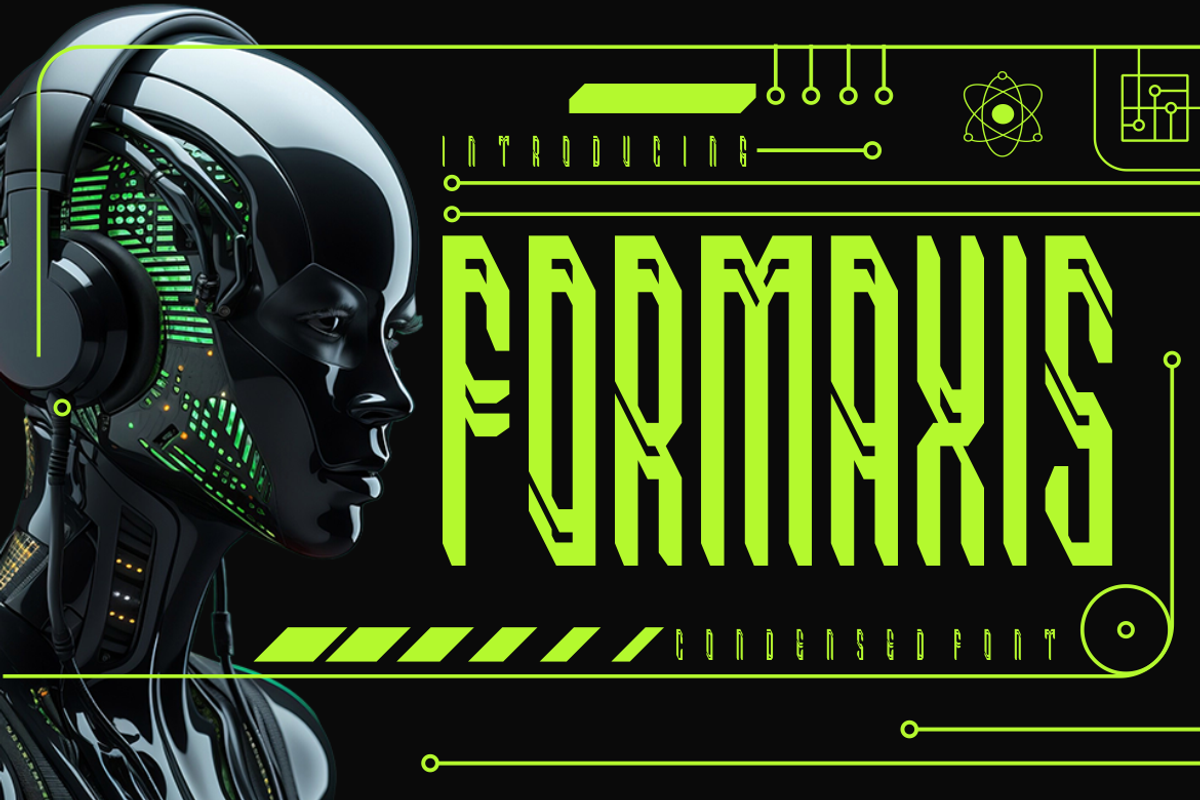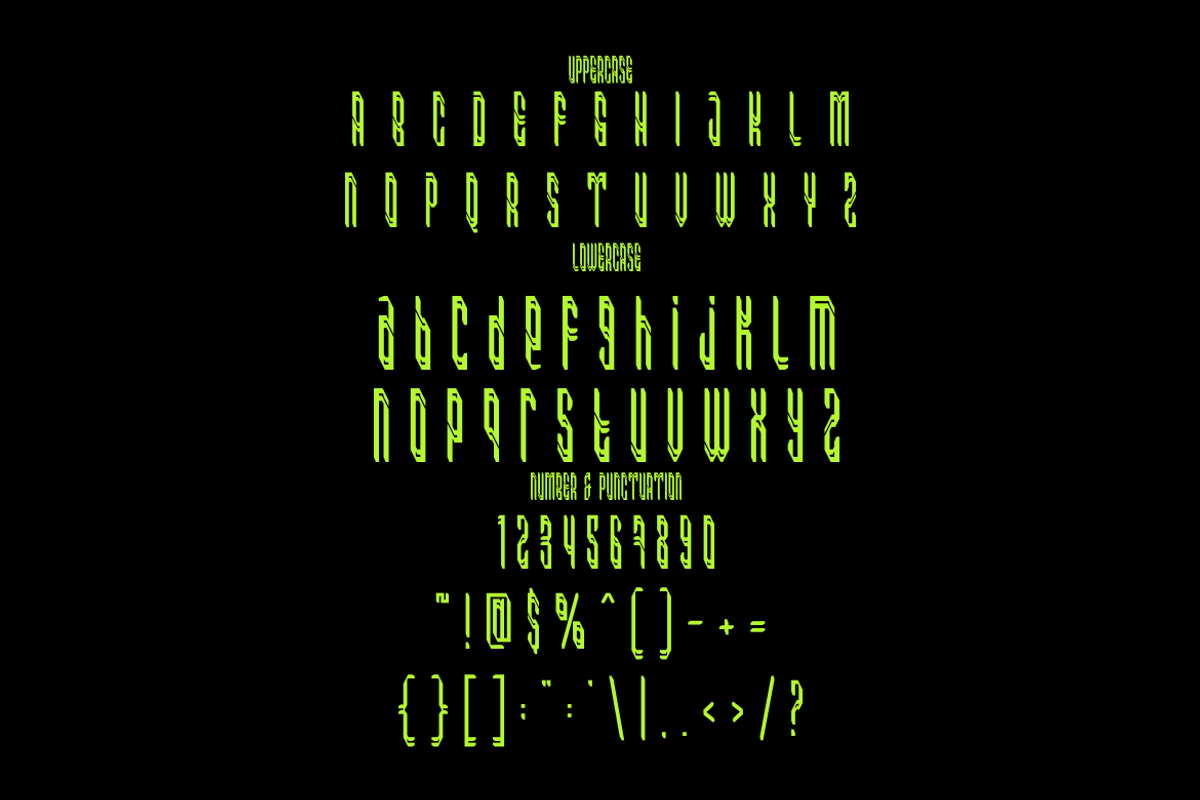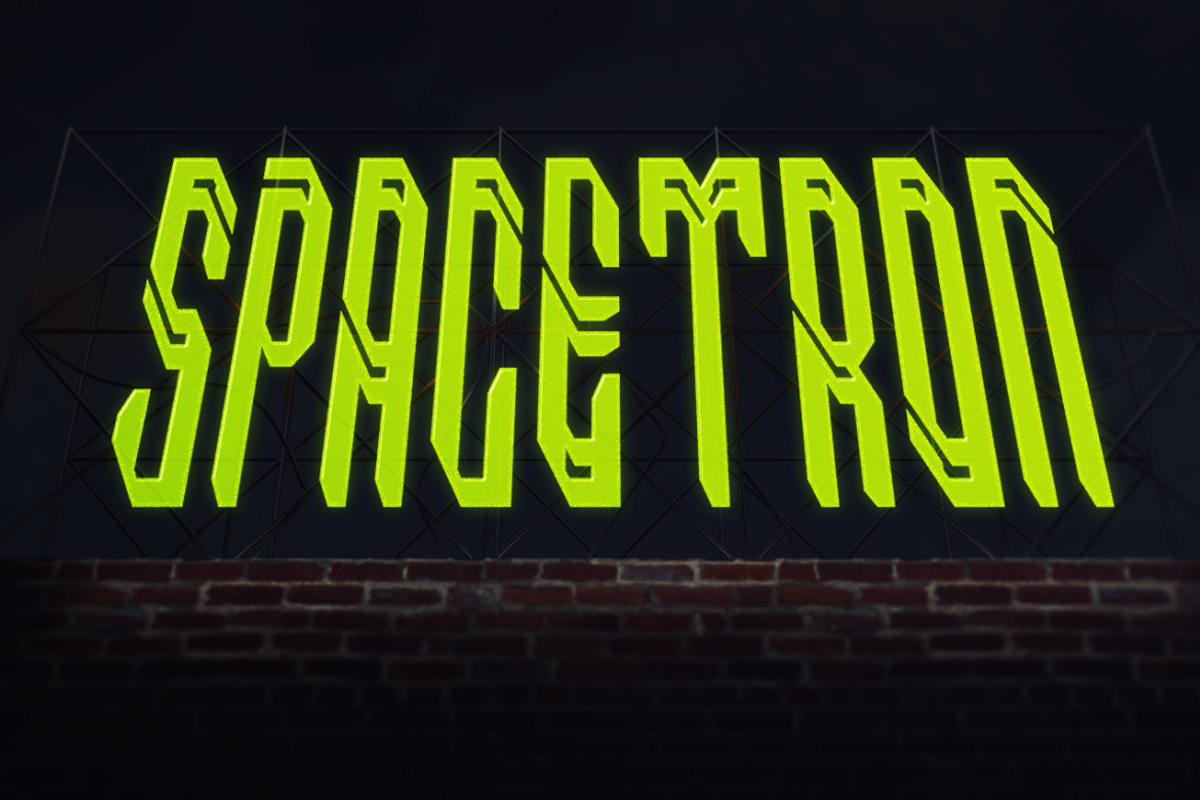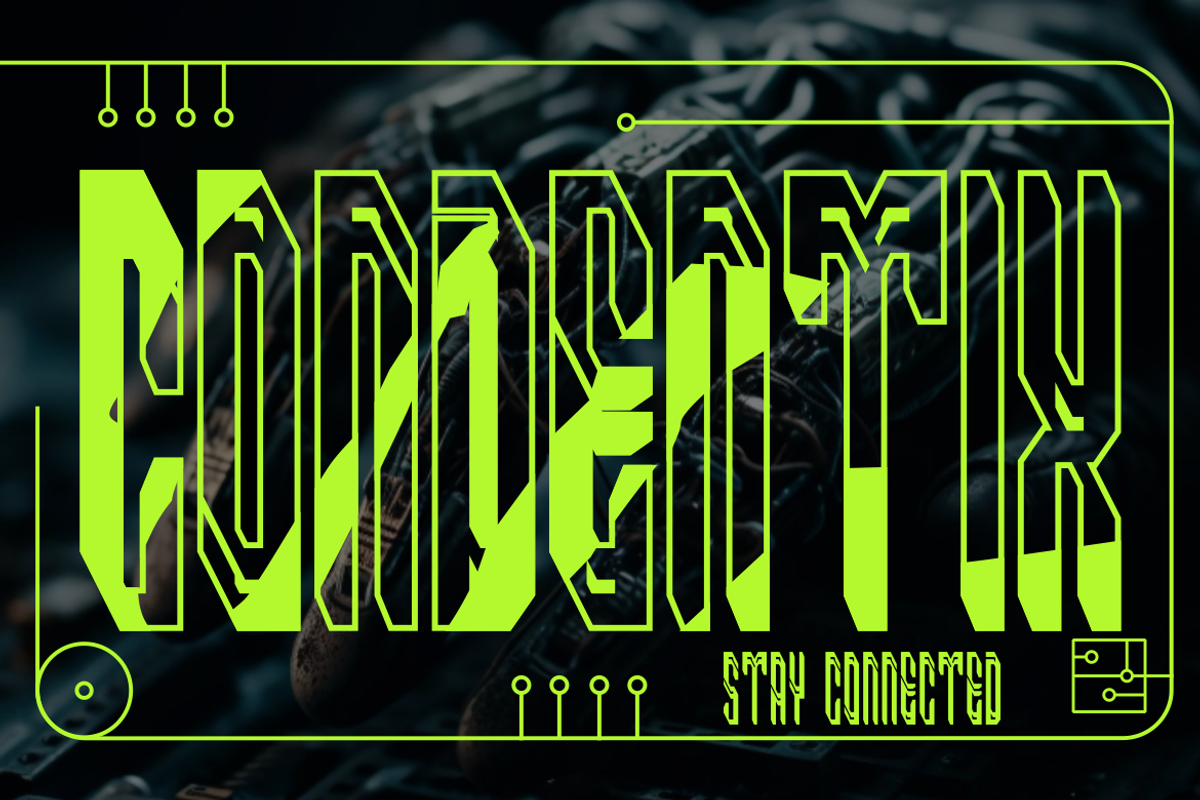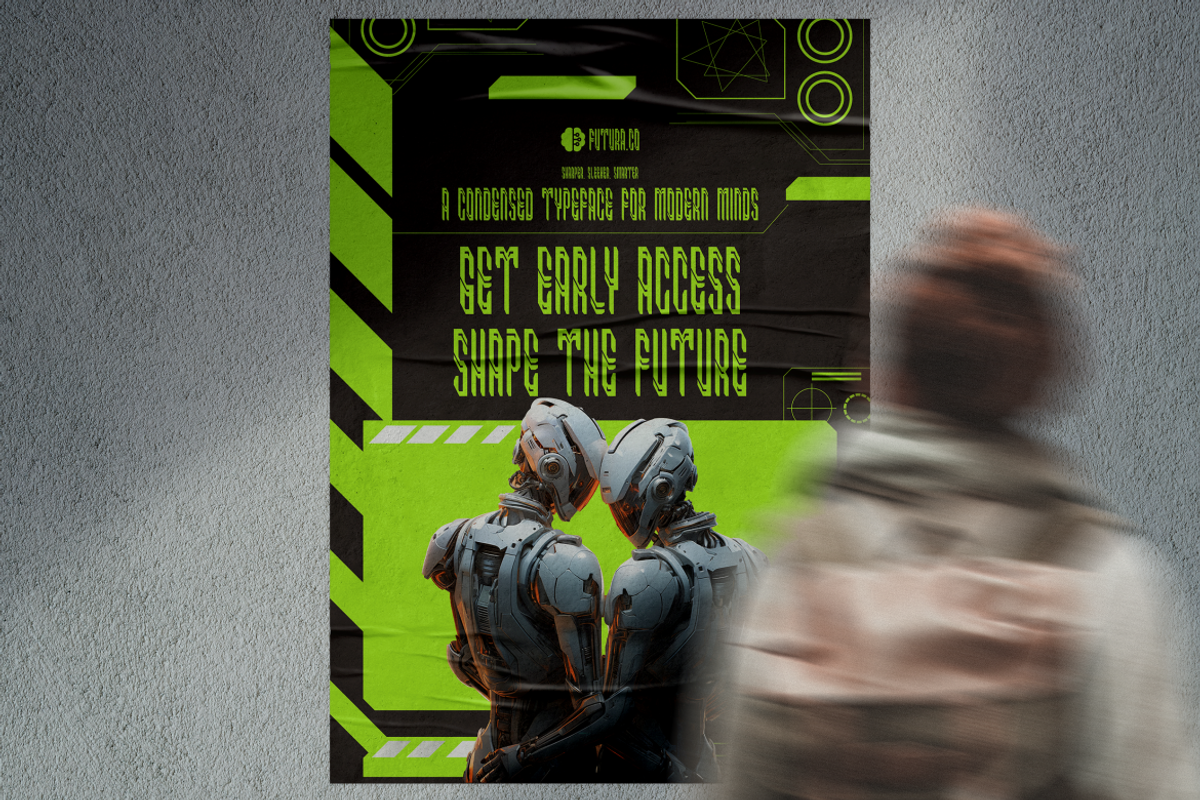
Formaxis Condensed Techno Font
Formaxis – Condensed Font is a striking typeface designed with sharp futuristic lines and condensed letterforms that immediately capture attention. Its geometric cuts and elongated vertical proportions create a bold and commanding appearance, perfect for technology-driven projects, cyberpunk designs, and sci-fi branding. The sleek structure reflects a modern digital aesthetic, where every stroke feels engineered with precision. Its strong readability and condensed shape make it versatile for posters, film titles, branding, and even product packaging that demands a futuristic edge.
This font blends the essence of cyber and mecha-inspired design, making it a top choice for industries embracing innovation and bold identity. It stands out in logos, editorial layouts, gaming covers, and techno-themed events, delivering both style and functionality. The Formaxis typeface not only elevates visual impact but also ensures clarity in digital and print formats. Its condensed structure saves space while amplifying presence, offering a unique solution for designers seeking futuristic aesthetics with maximum efficiency.